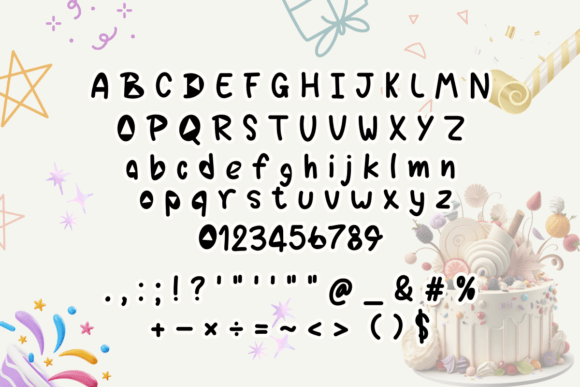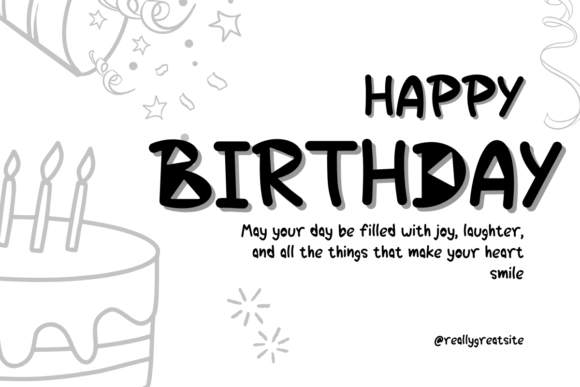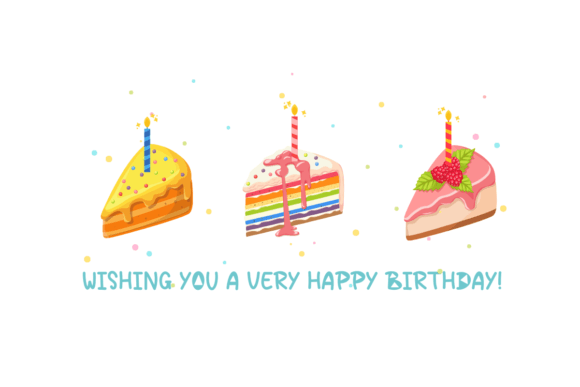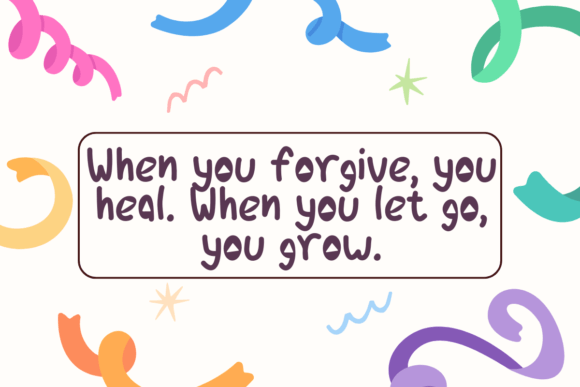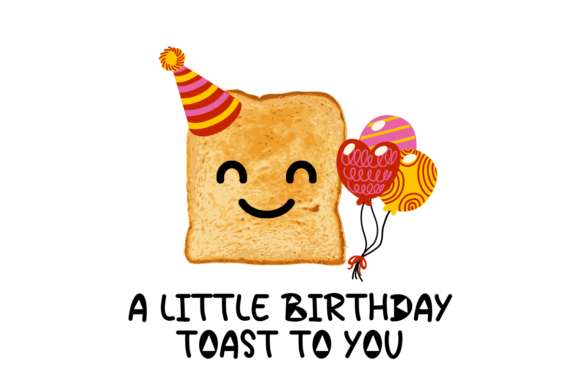
Introducing Big Birthday Font: The Sweet and Friendly Handwritten Font for Your Designs
Are you looking for a font that can add a personal touch to your designs? Do you want to create something that stands out from the crowd and speaks to your audience in a friendly and approachable way? Look no further than Big Birthday Font, a sweet and friendly handwritten font that’s perfect for a wide range of design projects.
What is Big Birthday Font?
Big Birthday Font is a beautiful, handwritten font that’s designed to bring a touch of warmth and personality to your designs. Its natural and unique style makes it incredibly versatile, and it’s perfect for everything from birthday cards and party invitations to branding and advertising materials.
One of the things that sets Big Birthday Font apart is its friendly and approachable feel. It’s a font that’s designed to make your audience feel like they’re being spoken to directly, and it’s perfect for creating a sense of connection and community in your designs.
The Benefits of Using Big Birthday Font
So why should you choose Big Birthday Font for your designs? Here are just a few of the benefits of using this amazing font:
- Unique and eye-catching: Big Birthday Font is a one-of-a-kind font that’s sure to grab attention and make your designs stand out from the crowd.
- Versatile: This font is perfect for a wide range of design projects, from digital materials to print projects.
- Easy to read: Despite its playful, handwritten style, Big Birthday Font is incredibly easy to read, making it perfect for body text and headlines.
- Customizable: With Big Birthday Font, you can create your own unique designs by experimenting with different colors, textures, and styles.
How to Use Big Birthday Font in Your Designs
So how can you use Big Birthday Font in your designs? Here are a few ideas to get you started:
- Birthday cards and invitations: Big Birthday Font is perfect for creating custom birthday cards and invitations that are sure to impress.
- Branding and advertising: Use Big Birthday Font to create eye-catching branding and advertising materials that speak to your audience in a friendly and approachable way.
- Party decorations: Create custom party decorations, such as banners and garlands, using Big Birthday Font.
- Digital materials: Use Big Birthday Font in your digital materials, such as social media graphics and email newsletters.
Tips and Tricks for Getting the Most Out of Big Birthday Font
Here are a few tips and tricks for getting the most out of Big Birthday Font:
- Experiment with different colors: Try pairing Big Birthday Font with different colors and textures to create unique and eye-catching designs.
- Use it with other fonts: Big Birthday Font pairs perfectly with other fonts, so don’t be afraid to experiment with different combinations.
- Play with size and scale: Big Birthday Font looks great in a variety of sizes, so try experimenting with different sizes and scales to create visual interest.
Big Birthday Font is a sweet and friendly handwritten font that’s perfect for designers and crafters who want to add a personal touch to their designs. Its natural and unique style makes it incredibly versatile, and it’s perfect for a wide range of design projects. Whether you’re creating birthday cards and invitations, branding and advertising materials, or digital materials, Big Birthday Font is sure to bring a touch of warmth and personality to your designs.